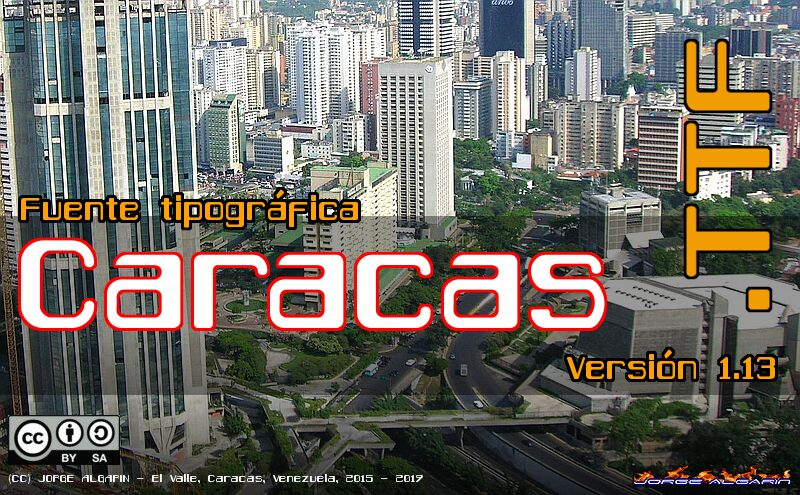
# CARACAS TIPOGRAPHY - VERSION 1.13 #
Modifications to the Caracas font:
-Kerning of the typography adjusted.
-Its size was resized making it a little smaller.
-Accented characters have been improved.
-The capital letter "double uv" or "double v" (W) was redesigned, since the previous one was very abrupt and ordinary.
-The zero (0) was redesigned.
-Greek characters were added, and some mathematical and logical signs.
-The Caracas font now covers the ISO-8859-1 standard.
-The brackets, carriages and keys were redesigned.
-The quotes were redesigned.
Modificaciones a la tipografa Caracas:
-Se ajusto el kerning de la tipografa.
-Se redimension su tamao hacindola un poco ms pequea.
-Se mejorarn los carcteres acentuados.
-Se rediseo la letra "doble uv" o "doble v" mayscula (W), dado que la anterior era muy abrupta y ordinaria.
-Se redise el cero (0).
-Se agregarn caracteres griegos, y algunos signos matemticos y lgicos.
-La tipografa Caracas cubre ahora el estandar ISO-8859-1.
-Se redisearon los parntesis, los cochetes y la llaves.
-Se se redisearn las comillas.
Caracas Normal — Prezentacja czcionki
Caracas
Jorge Algarin